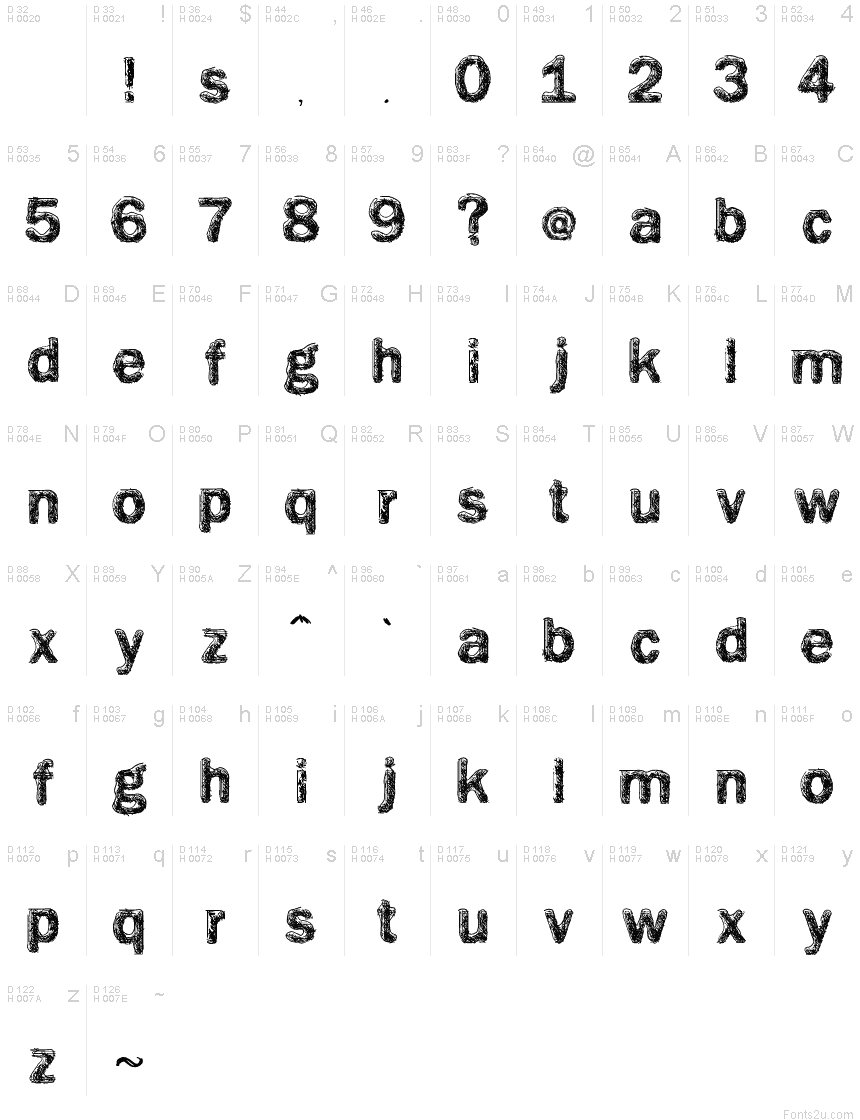
Vtks Giz by Douglas Vitkauskas is a free scribbled display font with rough outlines and restless pen hatching. The strokes bunch and fray like quick ink studies, and every letter has an uneven, wiry silhouette. Nothing here feels mechanically finished.
Its hatched drawing style can merge lettering with comic illustration or sketchbook art rather than reading as separate type. It suits gig posters, game graphics, and offbeat merchandise built around a scrappy handmade theme. In magazine design, it can turn a feature title into part of the accompanying line art.